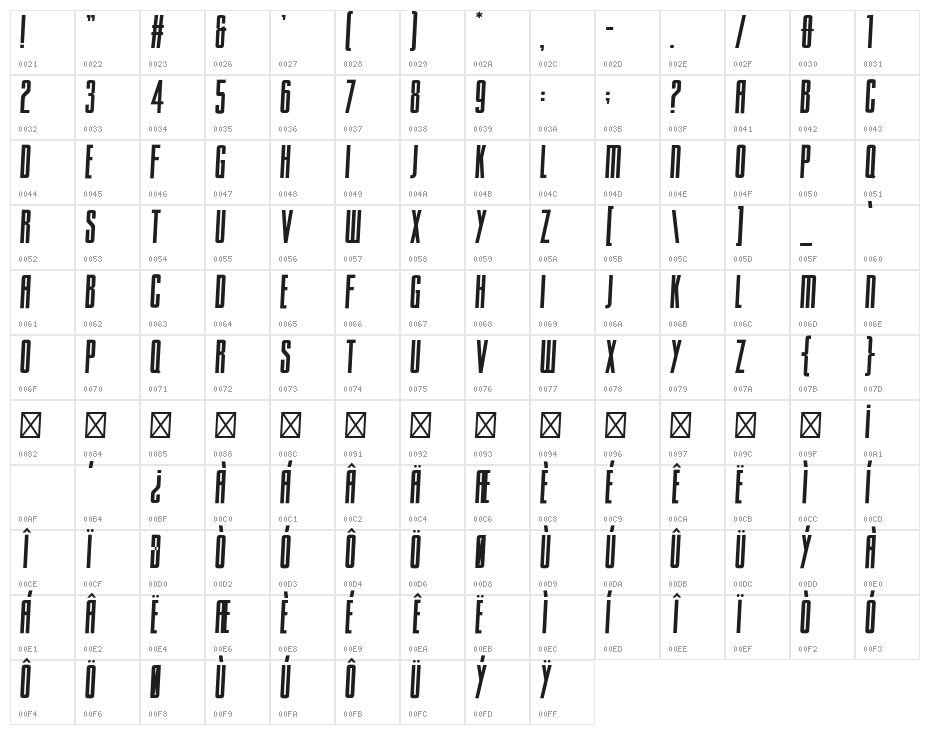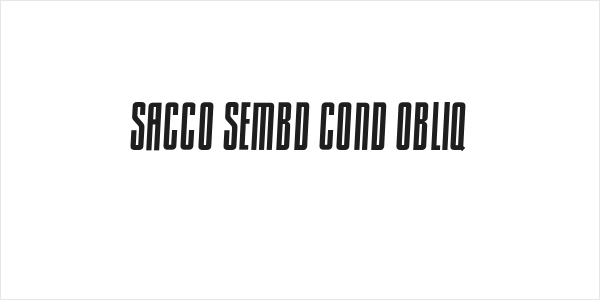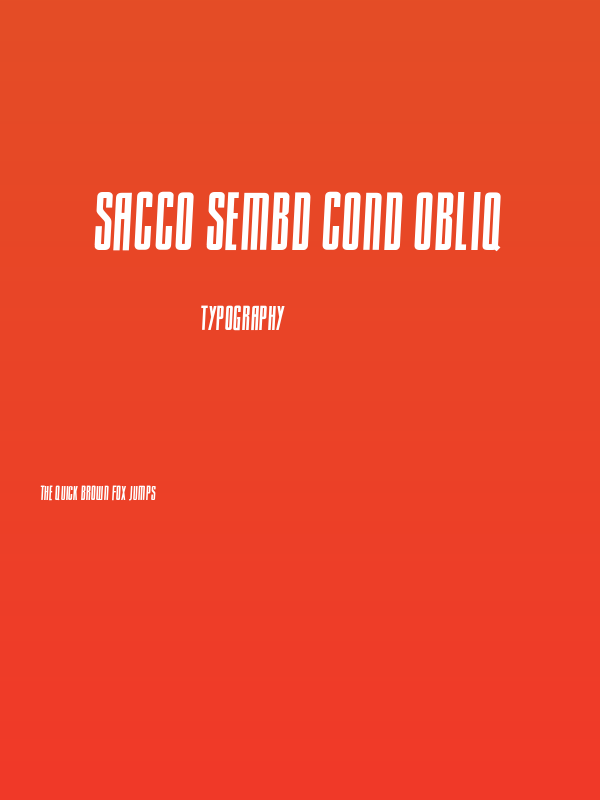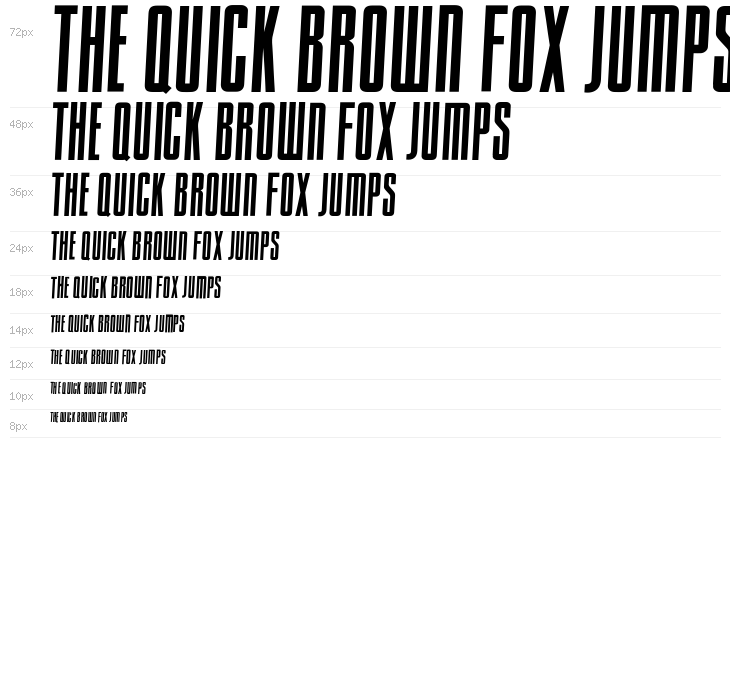
Sacco SemBd Cond Obliq Font
Sacco SemBd Cond Obliq Description
This font features a bold and condensed style with an oblique slant, giving it a dynamic and modern appearance. The uppercase and lowercase letters are tall and narrow, emphasizing verticality. The numbers and special characters maintain this condensed form, ensuring consistency across all glyphs. The strokes are uniform in thickness, contributing to a clean and streamlined look. The overall design is sleek and contemporary, making it suitable for impactful visual statements.